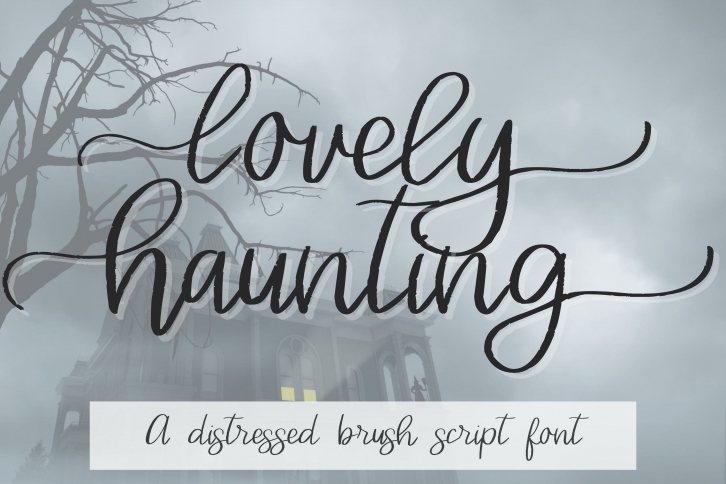
Lovely Haunting is a beautiful font that was designed by Designing Digitals. It's a great choice for designers and creatives who need such a font. It was released on August 19, 2022 and the file size is 1.47 MB. Lovely Haunting may give a more youthful, expressive and casual look to your project. It is a very beautiful, refined, elegant, and high-quality font.